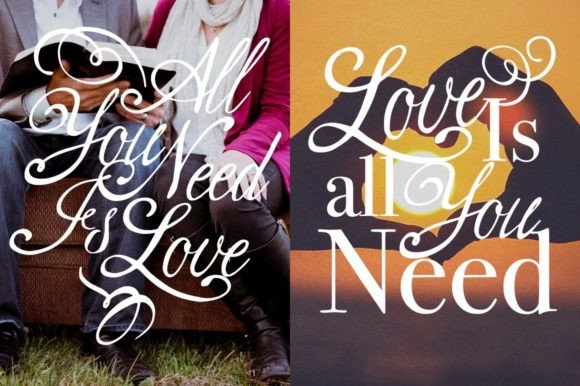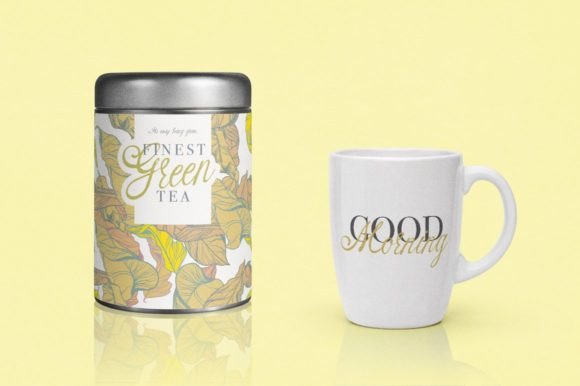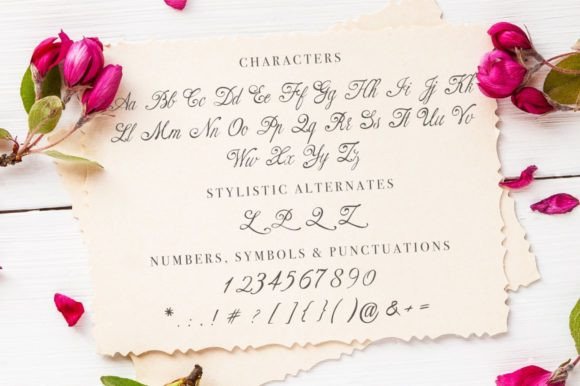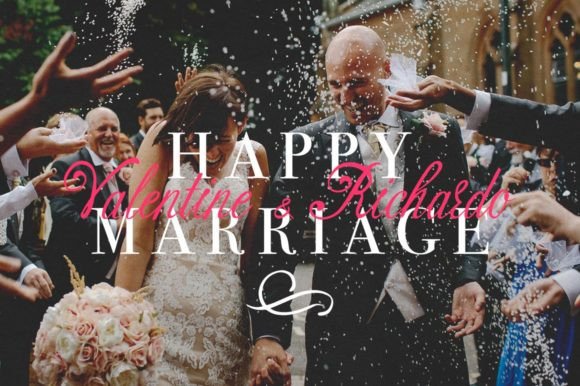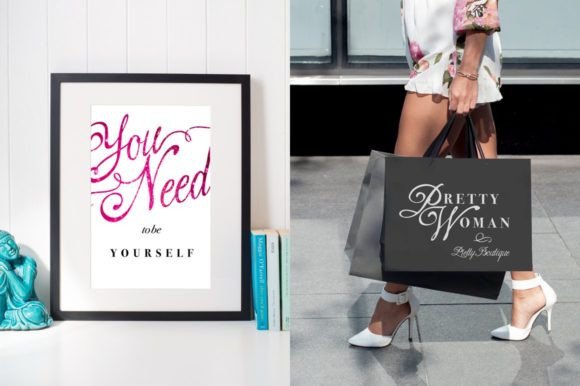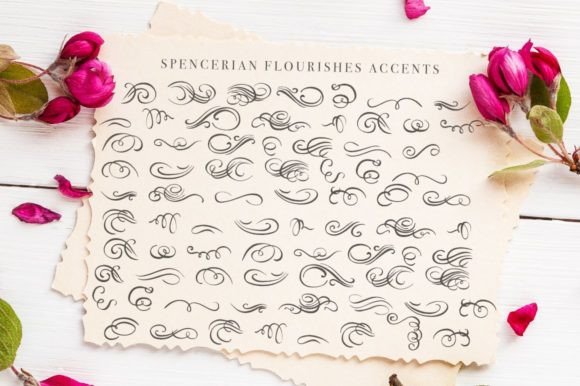
Introducing Heartless Font: The Elegant and Charming Handwritten Font
Are you a designer or crafter looking for a font that exudes elegance and charm? Look no further than the Heartless Font. This beautiful handwritten font is perfect for adding a touch of sophistication to any design project. In this article, we’ll explore the features and benefits of the Heartless Font, and how it can elevate your designs to the next level.
A Font that Steals Hearts
Heartless Font is a stunning script font that feels equally charming and elegant. Its delicate strokes and beautiful lettering make it perfect for a variety of design projects, from wedding invitations and thank you cards to quotes, greeting cards, logos, business cards, and more. Whether you’re a professional designer or a crafty DIY enthusiast, this font is sure to capture your heart.
Wedding invitations, save-the-date cards, and other event designs require a font that is both elegant and romantic. Heartless Font fits the bill perfectly. Its flowing script and delicate details make it ideal for creating beautiful and memorable wedding stationery. You can use it to create stunning invitations, thank you cards, and even wedding programs.
Add a Personal Touch to Your Designs
One of the best things about Heartless Font is its handwritten feel. It adds a personal touch to any design, making it perfect for crafters and DIY enthusiasts who want to create unique and personalized projects. Whether you’re creating custom party decorations, gift tags, or cards, this font is sure to make your designs stand out.
Key Features of Heartless Font
- Beautiful Handwritten Script: Heartless Font features a stunning handwritten script that is both elegant and charming.
- Delicate Strokes: The font’s delicate strokes and details make it perfect for creating beautiful and intricate designs.
- Versatile: Heartless Font can be used for a variety of design projects, from wedding invitations and event designs to logos, business cards, and more.
Tips for Using Heartless Font
Here are a few tips for using Heartless Font in your designs:
- Pair it with a Simple Font: Heartless Font is a statement font, so it’s best to pair it with a simple font to avoid overwhelming the design.
- Use it for Headlines and Titles: The font’s elegant script makes it perfect for headlines and titles. Use it to add a touch of sophistication to your designs.
- Experiment with Colors: Heartless Font looks beautiful in a variety of colors. Experiment with different colors to find the one that works best for your design.
Heartless Font is a beautiful and elegant handwritten font that is perfect for designers and crafters who want to add a touch of sophistication to their designs. Its delicate strokes, beautiful lettering, and versatile nature make it ideal for a variety of design projects. Whether you’re creating wedding invitations, event designs, or custom party decorations, this font is sure to capture your heart. So why wait? Download Heartless Font today and start creating stunning designs that will leave a lasting impression.